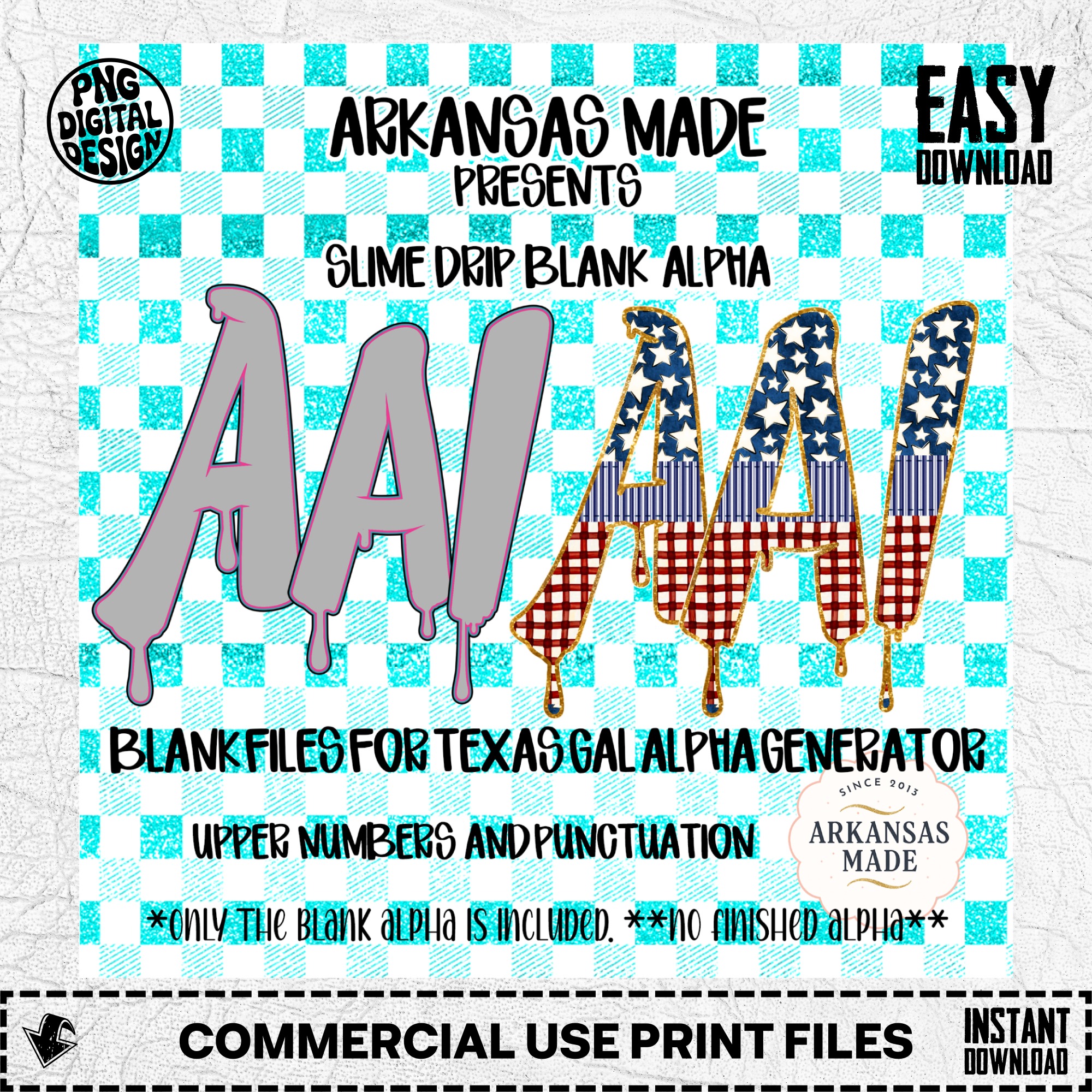
Slime Drip Blank Alpha PNGs for Texas Gal Alpha Generator, Dripping Font Letters, Digital Download Craft Supplies, Custom Projects
Create unique personalized projects with our Slime Drip Blank Alpha PNGs for Texas Gal Alpha Generator! This digital download includes dripping letters, numbers, and punctuation. Perfect for DIY crafters and small business owners, this versatile set features a playful slime drip aesthetic and a patriotic variant with faux gold print detail. Design custom apparel, tumblers, and gifts for Independence Day, birthdays, or any special occasion with ease and flair.